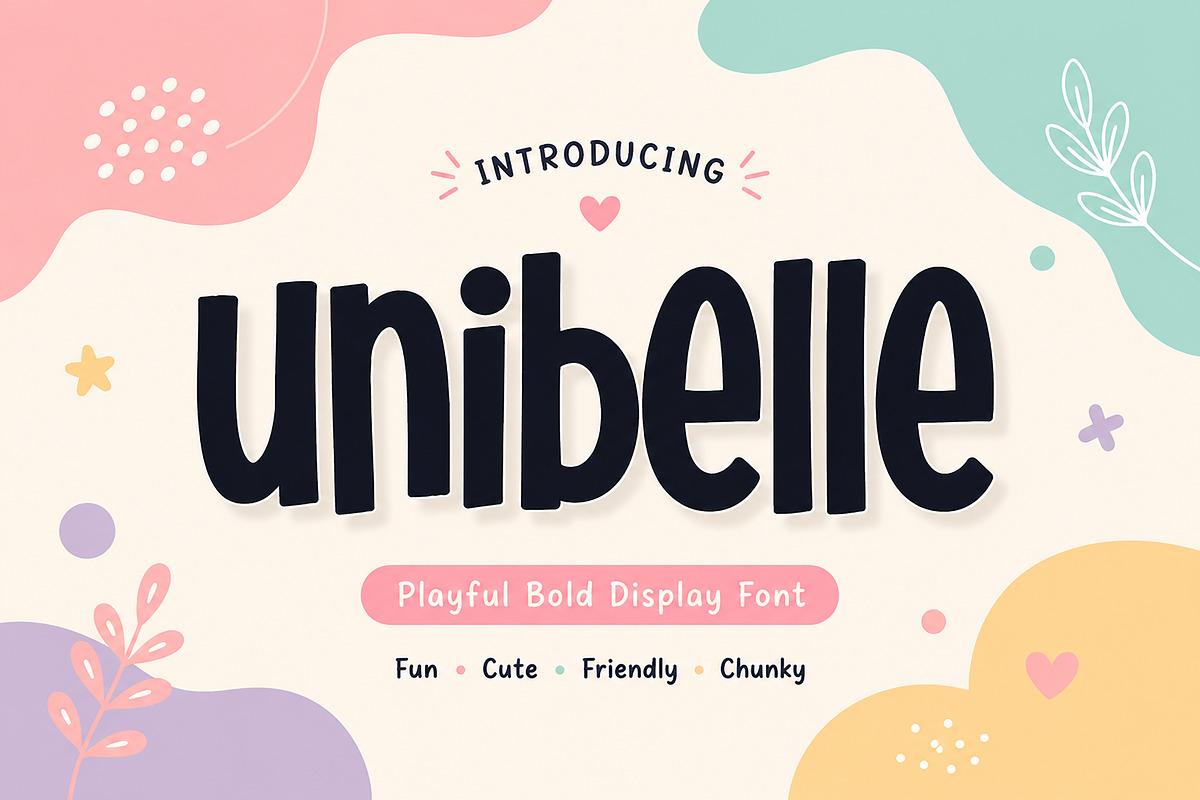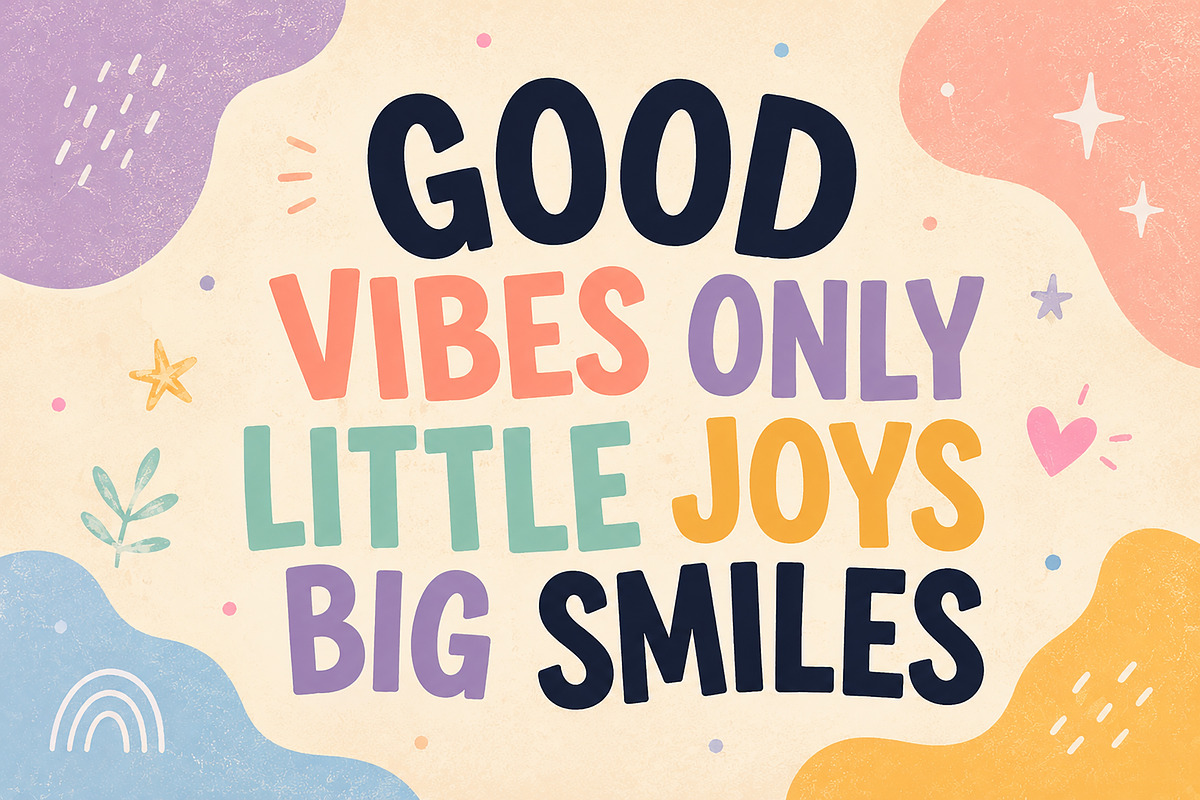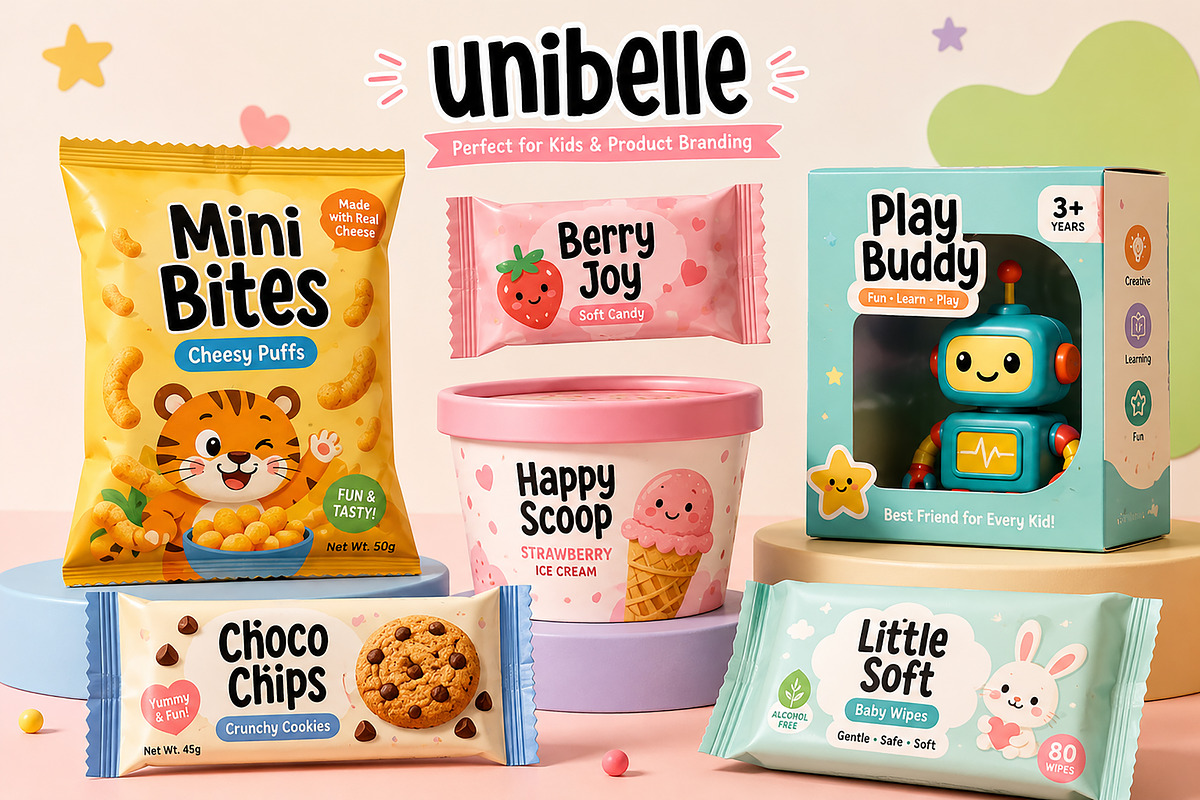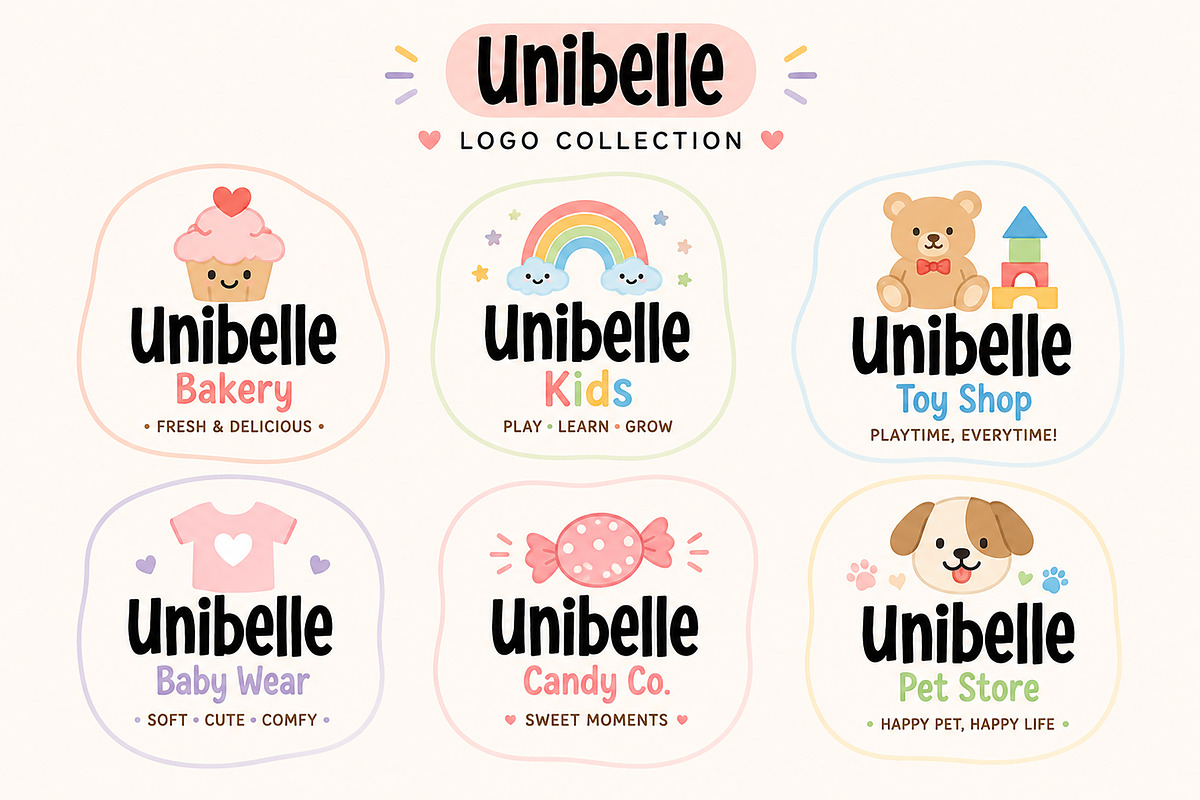
Unibelle
Unibelle is a playful bold display font with a soft, quirky, and friendly personality. Designed with chunky rounded letterforms and a fun handcrafted feel, this font is perfect for adding charm and joy to your creative projects. Its bold structure and cute aesthetic make it highly versatile for kids branding, packaging, social media graphics, posters, logos, stickers, and print-on-demand products.
Unibelle brings a warm and cheerful vibe that works beautifully for playful branding and modern creative designs. Whether you're creating toy packaging, baby product labels, candy logos, or fun Instagram posts, this font helps your design stand out with personality.
Kids branding
Toy packaging
Candy & snack labels
Baby product designs
Logo design
Posters & quotes
Stickers
T-shirt designs
Print-on-demand products
Cricut projects
Fun merchandise
Unibelle is the perfect choice for designers who want a font that feels cute, bold, playful, and full of positive energy.